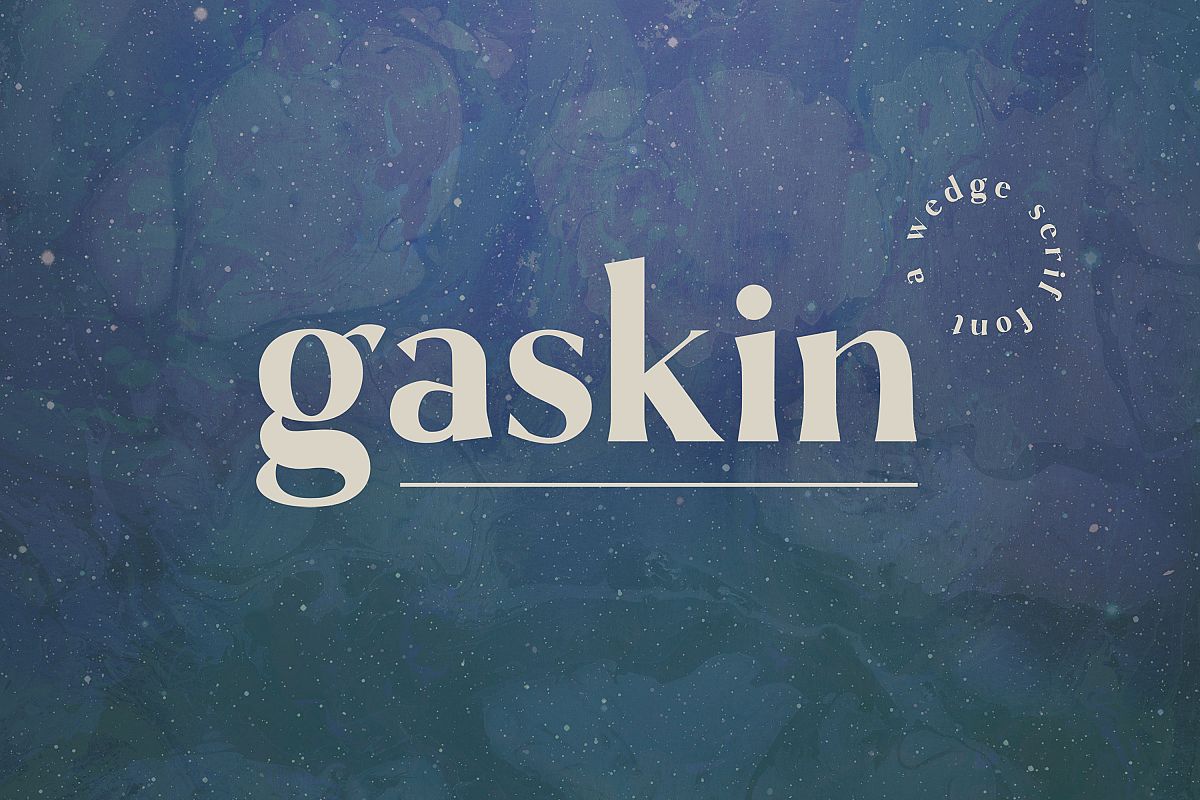
Gaskin - A Wedge Serif Font
INTRODUCING
Gaskin: a modern wedge serif font with sharp edges and a unique look. This high contrast font will help you create an unforgettable design.